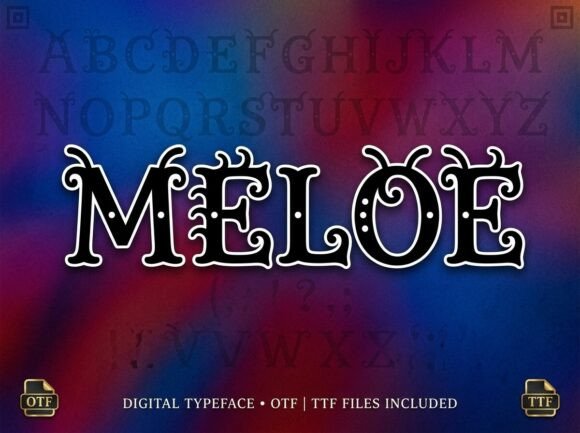
Introduction to Meloe Font
Step into a world of enchantment with Meloe, an ornate display typeface that captures a “whimsical-and-wondrous” soul.
This font features bold, high-contrast letterforms uniquely characterized by rhythmic, hand-drawn “antennas” and spiral flourishes that bridge the gap between fairytale illustration and modern boutique branding With its heavy structural weight and mystical personality, Meloe is the premier choice for independent fantasy book covers, artisanal toy packaging, magical event stationery, and high-impact “story-and-style” social media headers.
Key Features of Meloe Font
Meloe Font offers exceptional quality and versatility, making it a valuable addition to your design toolkit. Whether you’re creating for personal projects or commercial use, Meloe Font delivers professional results.